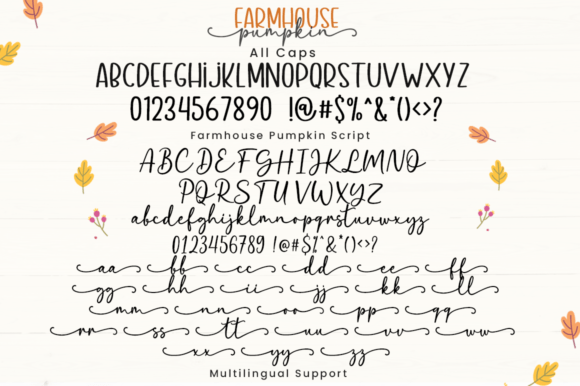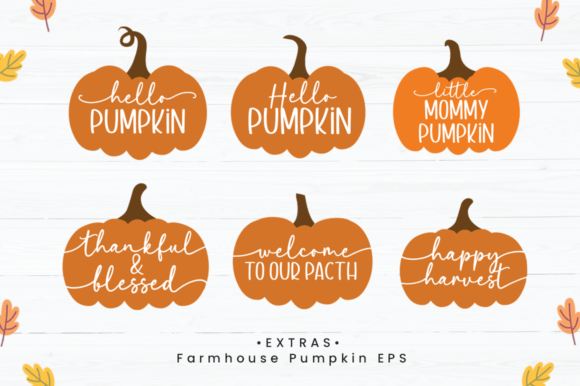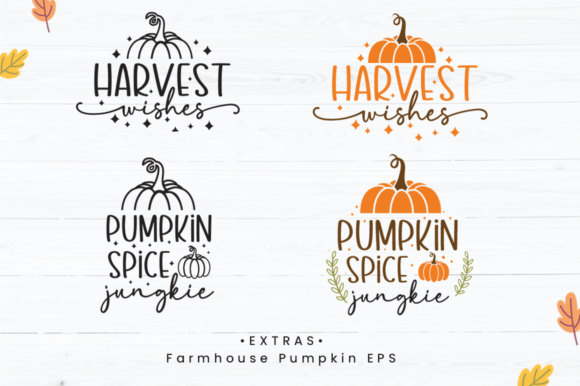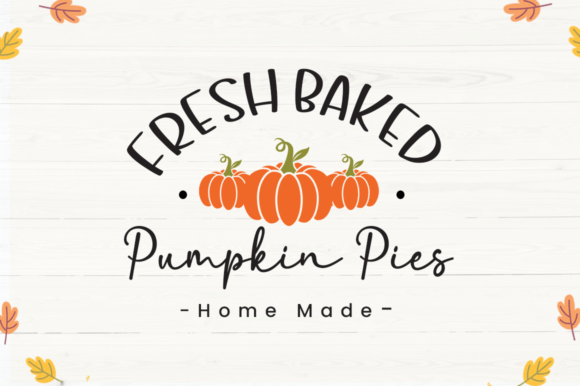
Farmhouse Pumpkin Font
Farmhouse Pumpkin is a cute and lovely handwritten font duo (sans and script). Its casual charm and fun personality are perfect for creating cozy autumn designs.